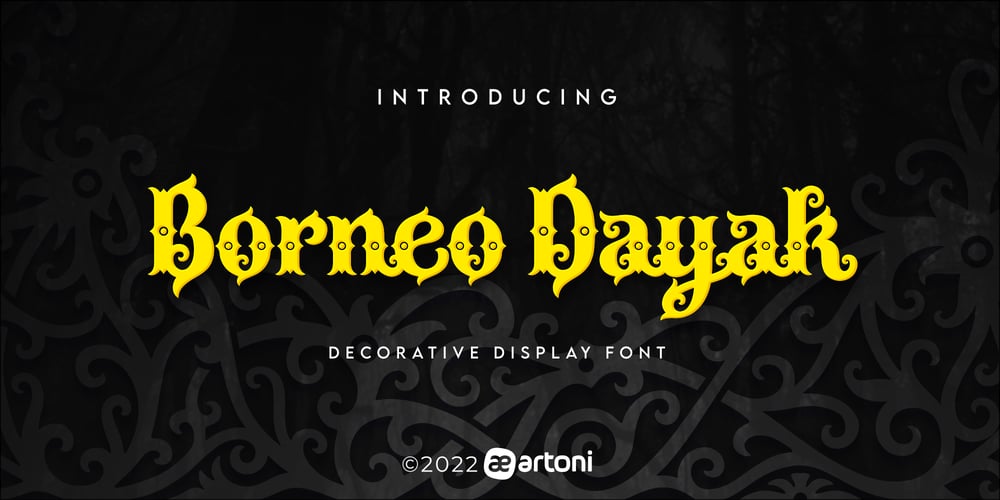
Borneo Dayak Font Family was designed by Anthonie Van Hayu and published by ARToni. Borneo Dayak contains 1 styles and family package options. Borneo Dayak Font is a decorative font inspired by the very distinctive traditional art of the Dayak tribe in Borneo or Kalimantan, Indonesia. with its unique style makes it look elegant throughout the ages. its perfect for any design project.